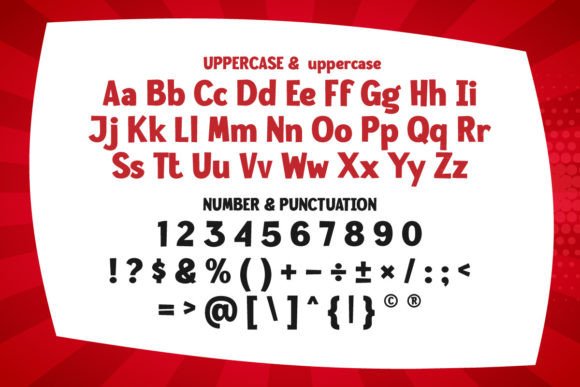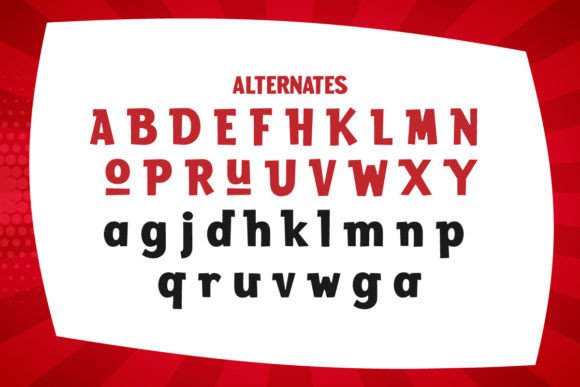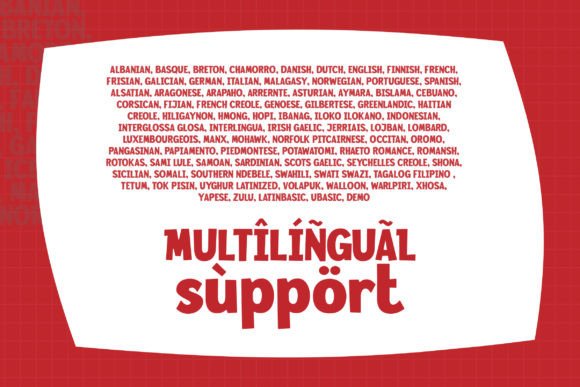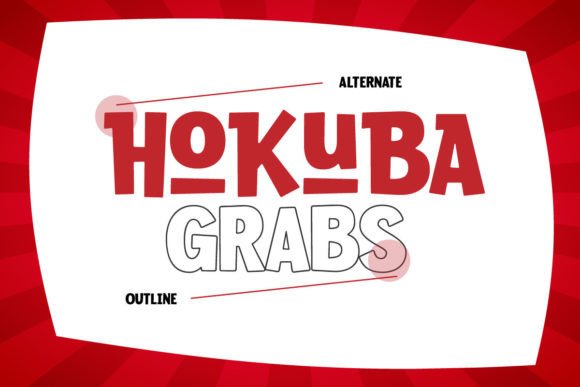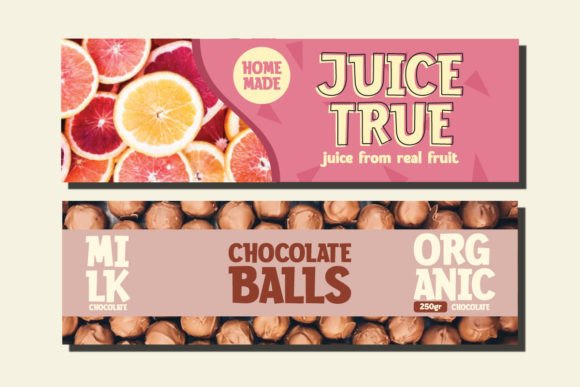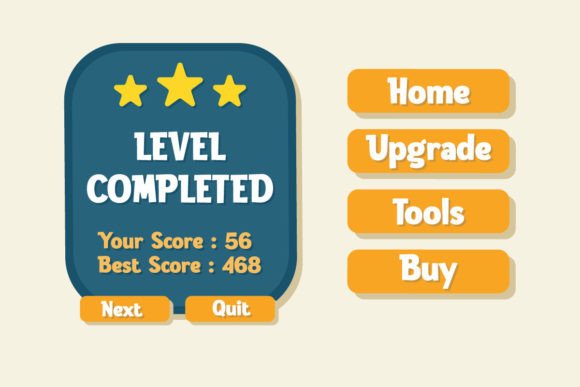
Unleashing Creativity with Hokuba Grabs Font
Have you ever stared at a blank page, waiting for the perfect font to spark your creativity? That moment of clarity is what drives designers to create something truly unique. And for those looking to add a touch of modern flair to their work, the wait is over. Introducing Hokuba Grabs Font, a display font that perfectly balances style and legibility.
Designed with a wide range of applications in mind, Hokuba Grabs Font is more than just a font – it’s a versatile tool for designers looking to make a statement. Whether you’re creating logos, posters, or social media posts, this font is sure to elevate your designs and leave a lasting impression.
With its clean lines and modern aesthetic, Hokuba Grabs Font is a valuable addition to any designer’s toolkit. Its versatility and ease of use make it an ideal choice for designers of all levels, from beginners to seasoned pros.
Hokuba Grabs Font Key Features
- Font Family: Hokuba Grabs Font is a unique and versatile font family that includes multiple styles and weights.
- Character Set: Supports a wide range of languages, including Latin, Cyrillic, and Greek alphabets, making it suitable for international use.
- Unique Characteristics: Features a distinctive, hand-drawn aesthetic with subtle imperfections, giving it a unique and human touch.
Hokuba Grabs Font Review
I recently had the chance to work with the Hokuba Grabs Font, and I have to say, it’s been an interesting experience. Here are some of my thoughts on this font.
- Unique character set: The Hokuba Grabs Font has a unique character set that adds a touch of elegance to any design.
- Good for branding: The font is great for branding purposes, especially for companies that want to stand out from the crowd.
- High-resolution support: The font supports high-resolution displays, making it perfect for modern designs.
- Limited flexibility: The Hokuba Grabs Font can be quite rigid, making it challenging to use in designs that require flexibility.
- Not suitable for body text: The font is not ideal for body text, as it can be difficult to read in large quantities.
The Hokuba Grabs Font is a great addition to any designer’s toolkit, but it’s essential to use it judiciously. Its unique character set and high-resolution support make it perfect for branding and display purposes. However, its limitations should not be overlooked. With careful consideration and planning, the Hokuba Grabs Font can be a valuable asset in your design arsenal.
Tips for Getting the Most Out of Hokuba Grabs Font
Use Hokuba Grabs Font to add a unique touch to your designs, especially for titles and headings.
Combine Hokuba Grabs Font with other fonts to create a visually appealing contrast.
Hokuba Grabs Font is ideal for:
Creating eye-catching titles and headings.
Designing creative and modern
Alternatives to Hokuba Grabs Font
Abril Fatface is a modern, elegant font that works well for headings and titles. It’s perfect for designers looking for a sans-serif alternative to Hokuba Grabs Font’s condensed feel. Abril Fatface is highly legible and comes in a range of weights.
Comparison to Hokuba Grabs Font: Abril Fatface has a more modern feel and is more versatile in terms of font weights. It’s also more suitable for body text, whereas Hokuba Grabs Font is typically used for headlines.
Playfair Display is an elegant, high-end font that’s perfect for luxury brands and high-end designs. It’s a great alternative to Hokuba Grabs Font for designers looking for a more sophisticated, vintage feel. Playfair Display is highly customizable and comes in a range of styles.
What is the recommended font size for the Hokuba Grabs Font?
The recommended font size for the Hokuba Grabs Font varies depending on the application and desired visual impact. However, as a general guideline, we recommend using font sizes between 12pt and 24pt for body text, and 36pt to 48pt for headings and titles.